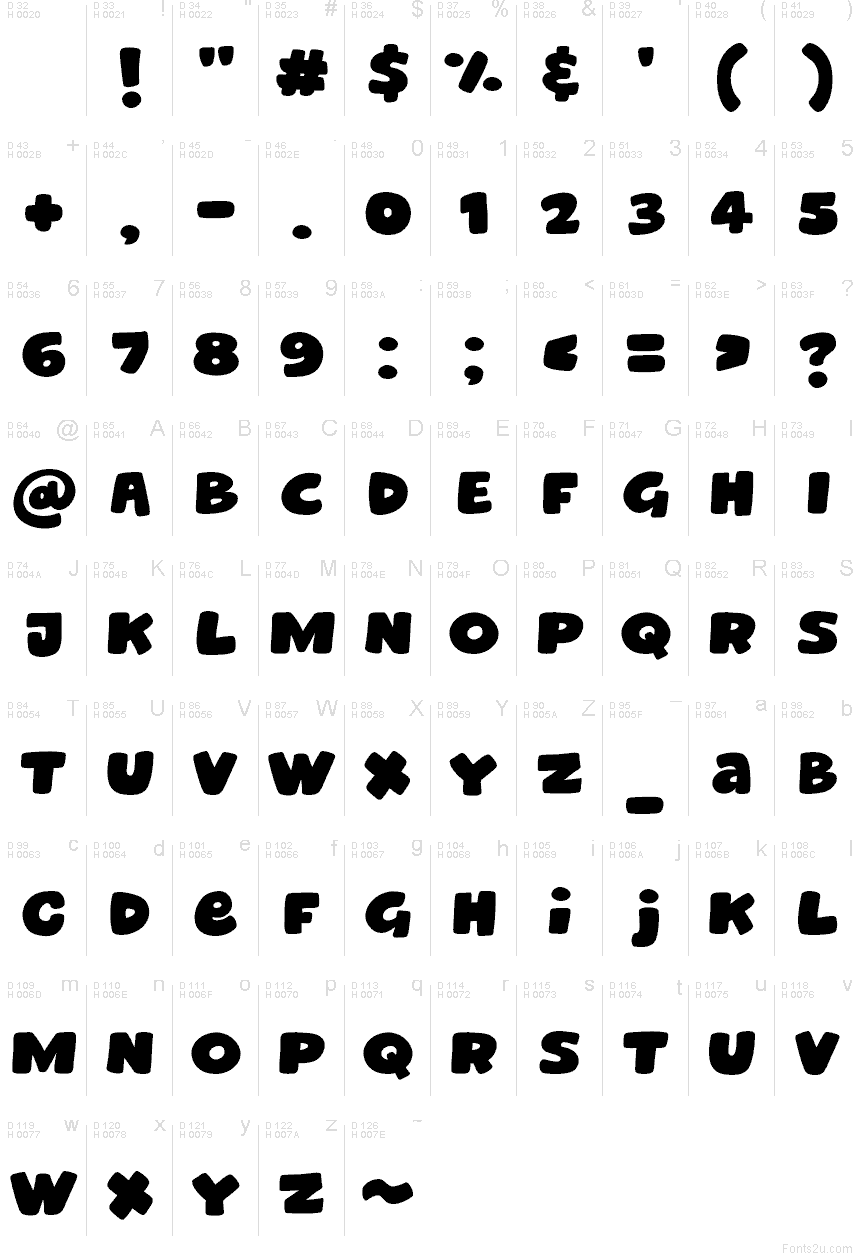
Swap Comic
Swap Comic font by Muhamad Junaid of MJType is a free comic font with chunky, bubble-soft strokes that feel like they were inked with a fat marker. Its rounded shapes and squishy weight keep everything friendly and readable, even when you punch it up big. The rhythm is bouncy without getting messy, so your message lands with a grin.
Using Swap Comic on kids’ posters, comic panels, sticker packs, classroom worksheets, playful app onboarding, snack packaging, YouTube thumbnails, and birthday invites just works. This free font also shines for short headlines and punchy captions—give it room to breathe and it stays crisp. Pair it with a clean sans like Inter or Helvetica for body copy to keep the fun under control.